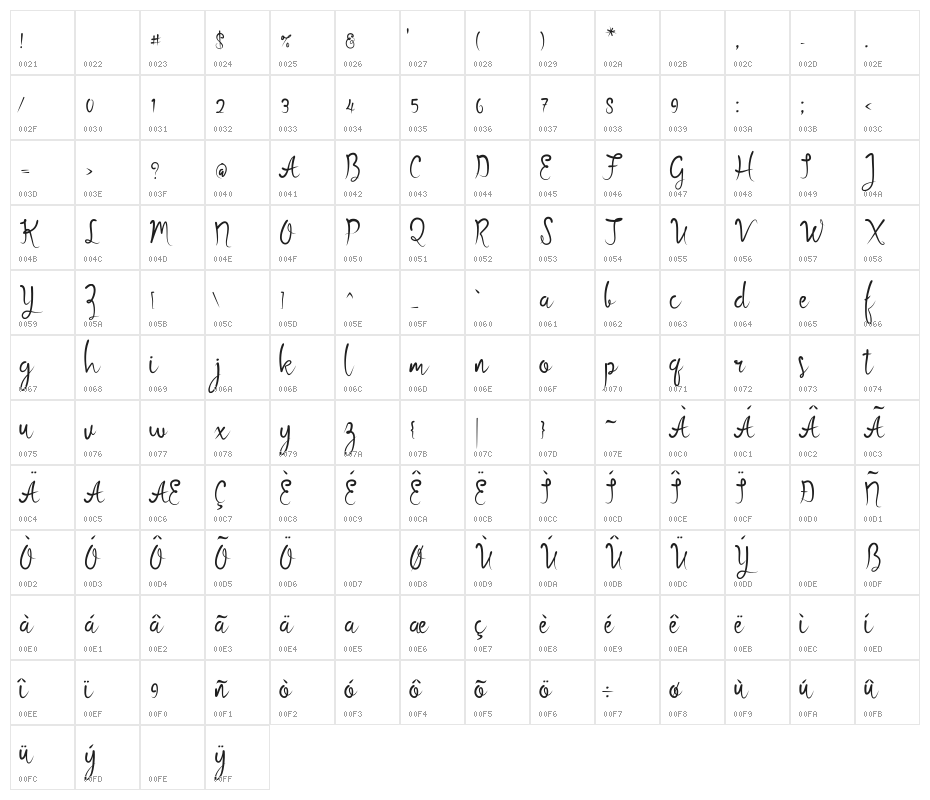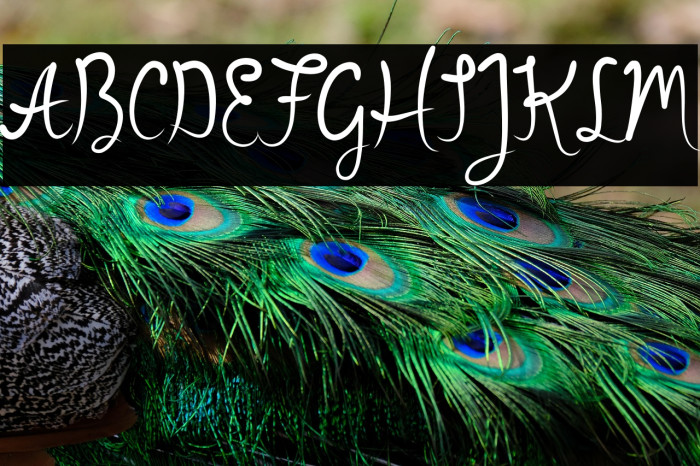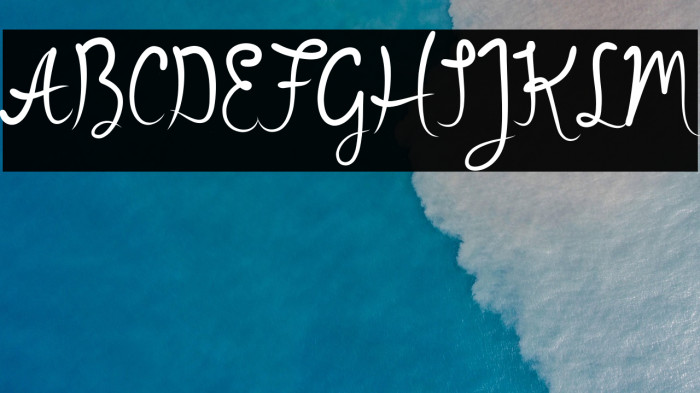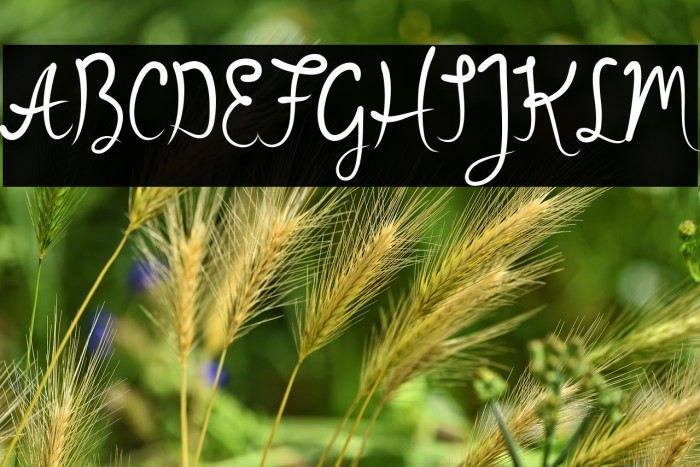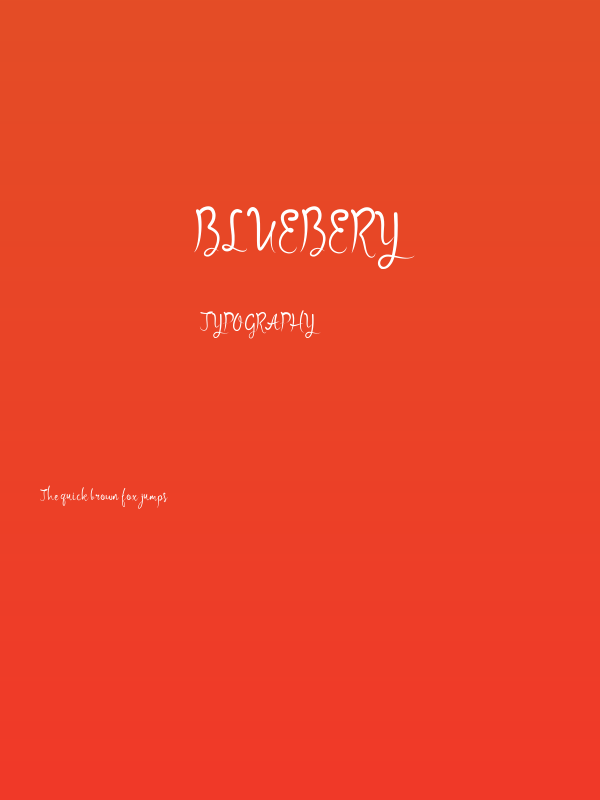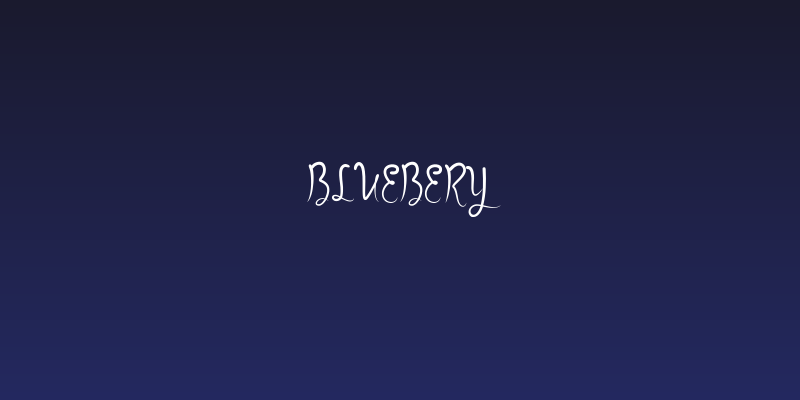
Bluebery Font
Bluebery Description
This font features a whimsical, handwritten style with a playful and artistic flair. The characters are fluid and dynamic, with varying stroke widths that give it a lively and expressive appearance. The uppercase letters are particularly ornate, with loops and swirls that add a touch of elegance and creativity. The lowercase letters maintain a consistent flow, complementing the uppercase with their smooth curves. Numbers and special characters are designed with the same artistic touch, making them blend seamlessly with the alphabet. This font is perfect for projects that require a personal and creative touch, such as invitations, greeting cards, or artistic branding.
| Use Case | Logos, Headlines, Artistic projects |
| Proposed Projects | Ideal for invitations, greeting cards, artistic branding, and creative projects. |